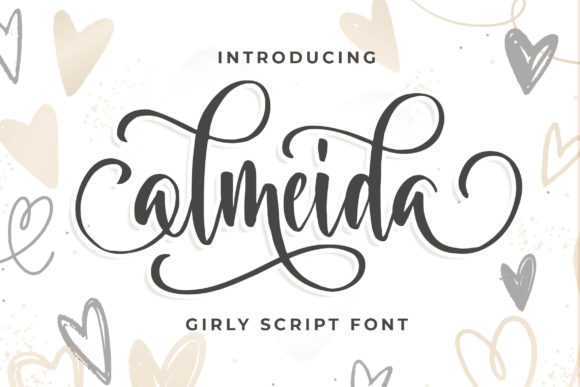
The Elegance of Almeida Font: A Designer’s Delight
I’ll never forget the time I was working on a wedding invitation project, and my client asked for a font that exuded elegance and sophistication. I scoured the internet, trying out font after font, but nothing seemed quite right. That was until I stumbled upon Almeida Font. Its beautiful script characters flowed effortlessly across the page, and I knew I had found the perfect fit. In this article, I’ll share my love for Almeida Font, its features, and how to make the most of it in your designs.
An Honest Review of Almeida Font
- ✨ Beautiful script characters that flow effortlessly across the page
- 🎉 Enchanting and elegant, perfect for high-end designs
- 🖌️ Highly versatile, suitable for a range of design projects
While Almeida Font is a stunning addition to any design project, there are a few things to keep in mind:
- ⚠️ As with any script font, it may not be suitable for body text or long blocks of text
- 🤔 Some users may find the font requires a bit of tweaking to get the kerning just right
The Story Behind Almeida Font
Almeida Font was designed by a talented type designer who’s passionate about creating beautiful, elegant fonts. The font is inspired by traditional calligraphy and is designed to evoke a sense of sophistication and luxury. Whether you’re a designer, crafter, or creative hobbyist, Almeida Font is sure to become a favorite in your font collection.
| Font Name | Almeida Font |
| Author | Blankids Studio |
Q: Is Almeida Font suitable for body text?
A: While Almeida Font is a beautiful font, it’s not recommended for body text or long blocks of text. Its elegant script characters are best suited for headings, titles, and short paragraphs.